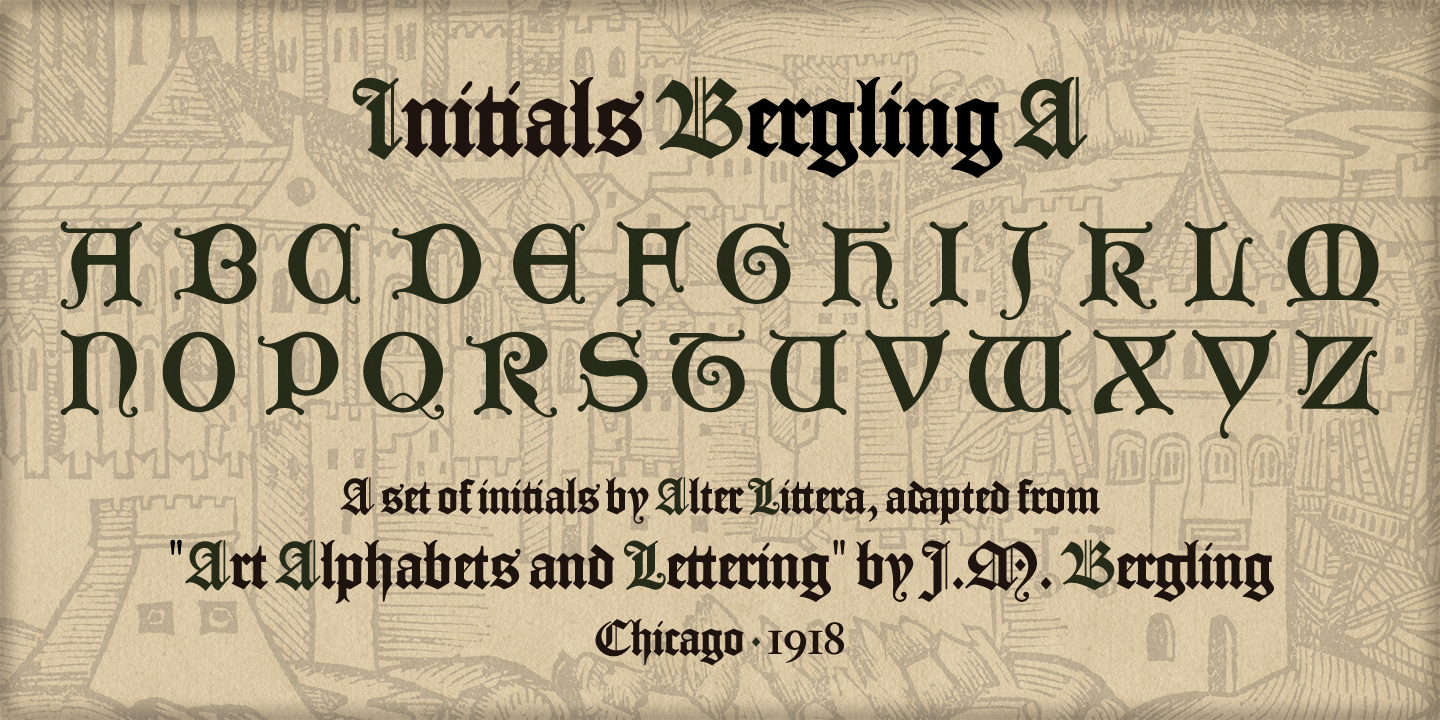
Initials Bergling A Font is a specialized and exquisitely ornate typeface, perfect for designs that aim to convey a sense of classic luxury, personalized elegance, or a distinguished, historical aesthetic. Specifically designed for creating intricate monograms and decorative initial capitals, its highly embellished letterforms, often adorned with flourishes, intertwining elements, or calligraphic details, make it an excellent choice for high-end wedding invitations, luxury brand embossing, custom stationery, and bespoke giftware. Imagine it gracing the title page of an heirloom book, providing an air of opulent sophistication to fine jewelry engravings, or adding a distinguished touch to family crest designs. This font is also superb for formal event collateral, personalized artisan crafts, and any project where elaborate detailing, a sense of grandeur, and a visually captivating, individualized identity are paramount. It doesn't just display letters; it transforms them into miniature works of art.
What Makes Initials Bergling A Font So Exciting?
What makes Initials Bergling A Font so exciting is its remarkable ability to blend historical artistry with the timeless appeal of personal branding. It possesses a distinctive visual richness, with meticulously crafted details that evoke the intricate beauty of traditional monograms and illuminated manuscripts. This unique character makes it a fantastic choice for designers looking to infuse their projects with a sense of bespoke luxury, profound tradition, and an unforgettable visual impression. It’s a font that speaks with a lavish and exclusive voice, making it ideal for brands and creators who want to convey elegance, exclusivity, and a truly aspirational aesthetic. Its highly decorative appeal ensures that any initial becomes a focal point of sophisticated design.
Usage Examples for Initials Bergling A Font
Initials Bergling A Font excels in applications where intricate and personalized decorative elements are desired. Consider its use in:
Wedding & Event Stationery: Monograms for invitations, menus, and place cards.
Luxury Product Branding: Embossed logos, labels, and packaging for high-end goods.
Personalized Gifts: Engraved items, custom stationery, and unique monograms.
Book Design: Decorative initial caps for chapters in classic or luxury editions.
Heritage & Family Projects: Family trees, crests, and historical document embellishments.
Initials Bergling A Font Family and Weights
The Initials Bergling A Font is a highly specialized decorative font, and as such, it typically functions as a set of individual ornamental characters, often without lowercase or extensive traditional weights. Its "family" might consist of different stylistic sets or complementary components designed for interlocking or standalone use. You might find variations or complementary sets such as:
Initials Bergling A Regular (the primary ornate style for initial capitals)
Initials Bergling A Left / Center / Right (if designed as components for building complex monograms)
Initials Bergling A Swashes / Ornaments (additional decorative flourishes or borders that accompany the letters)
These specialized components empower designers to create truly unique and elegant monogram designs, adding depth and visual splendor to their compositions. The availability of Initials Bergling A Font Free Download offers an excellent opportunity to explore its unique intricate beauty and expressive potential for your personal design ventures.